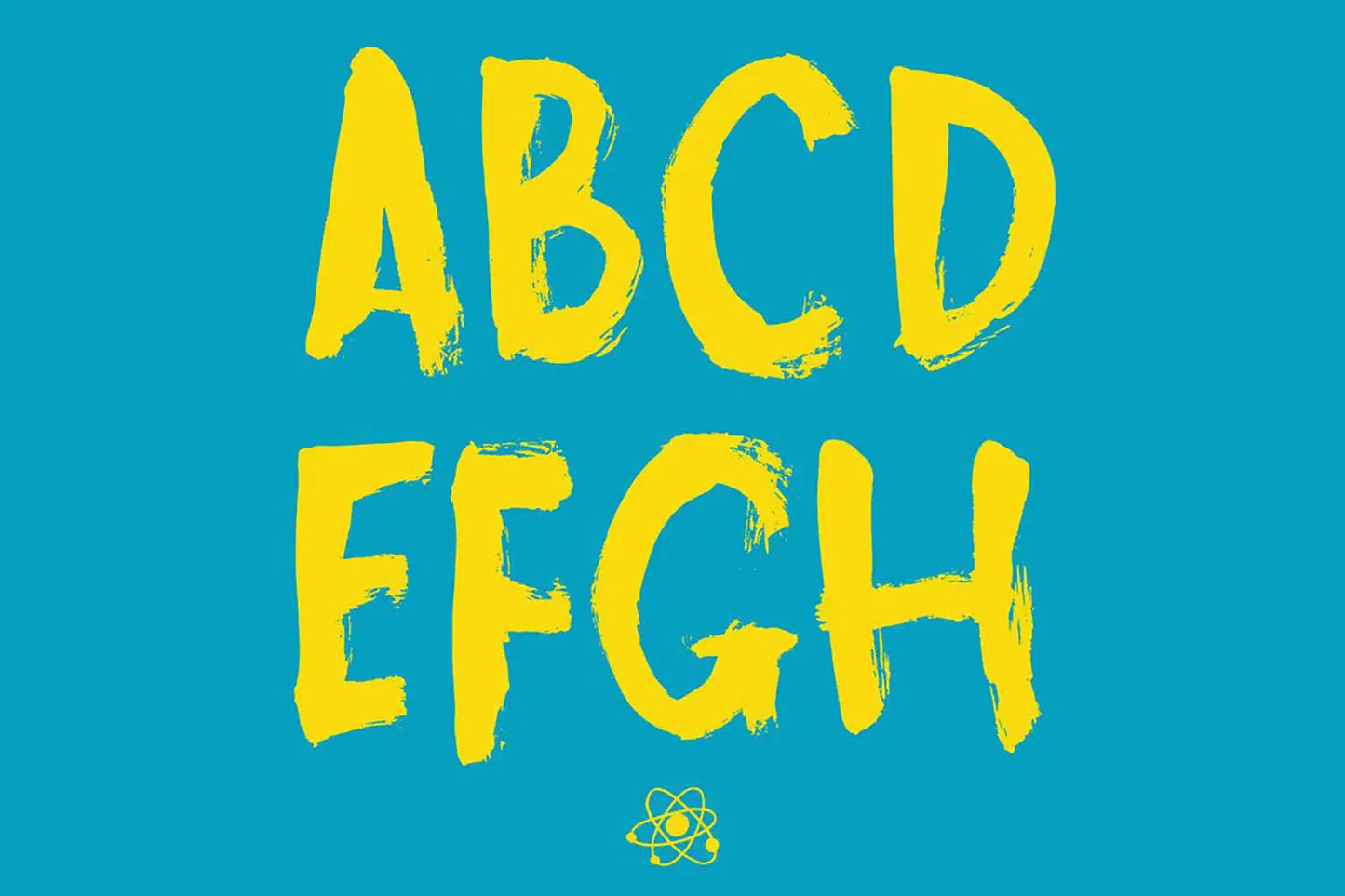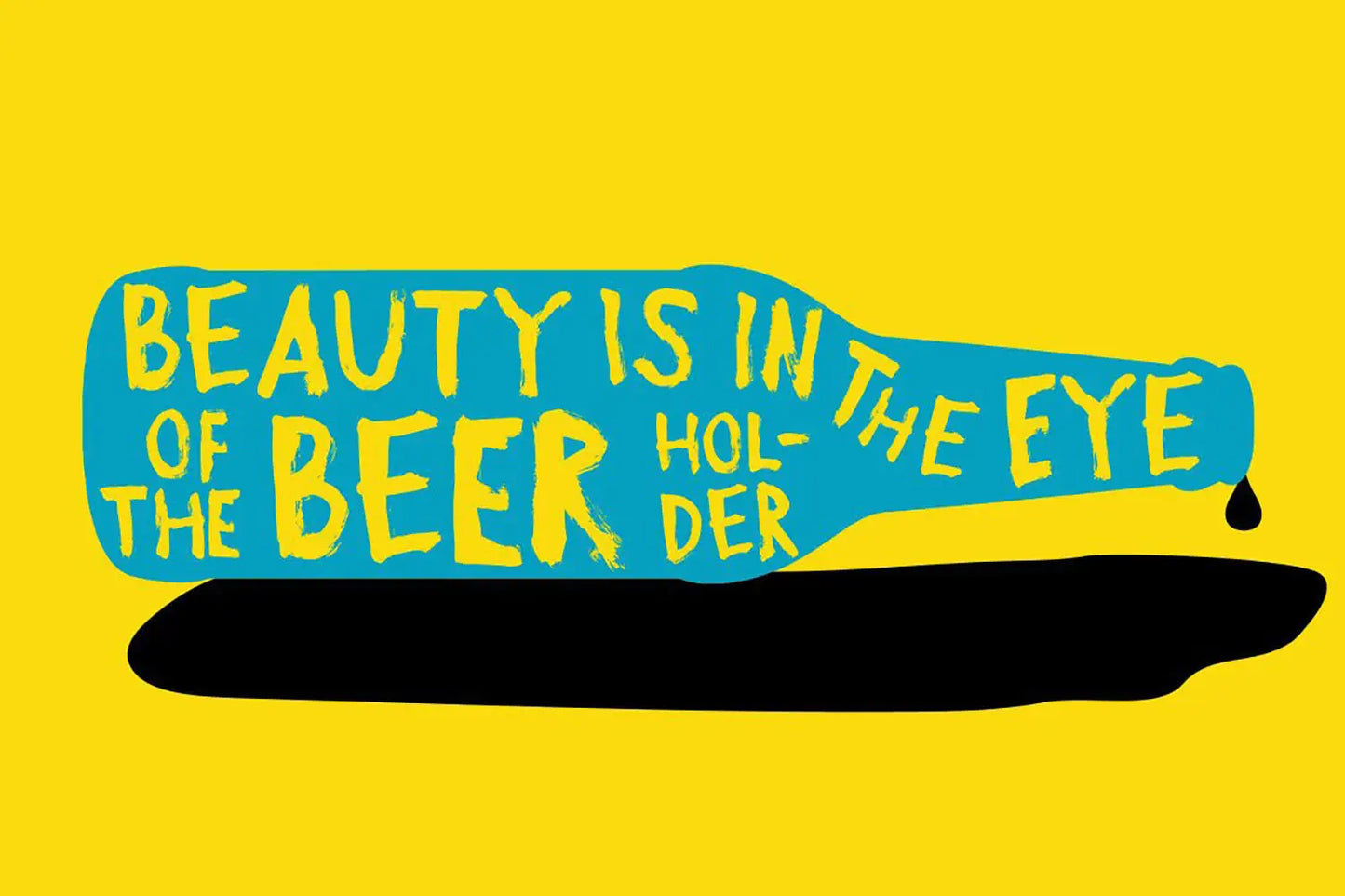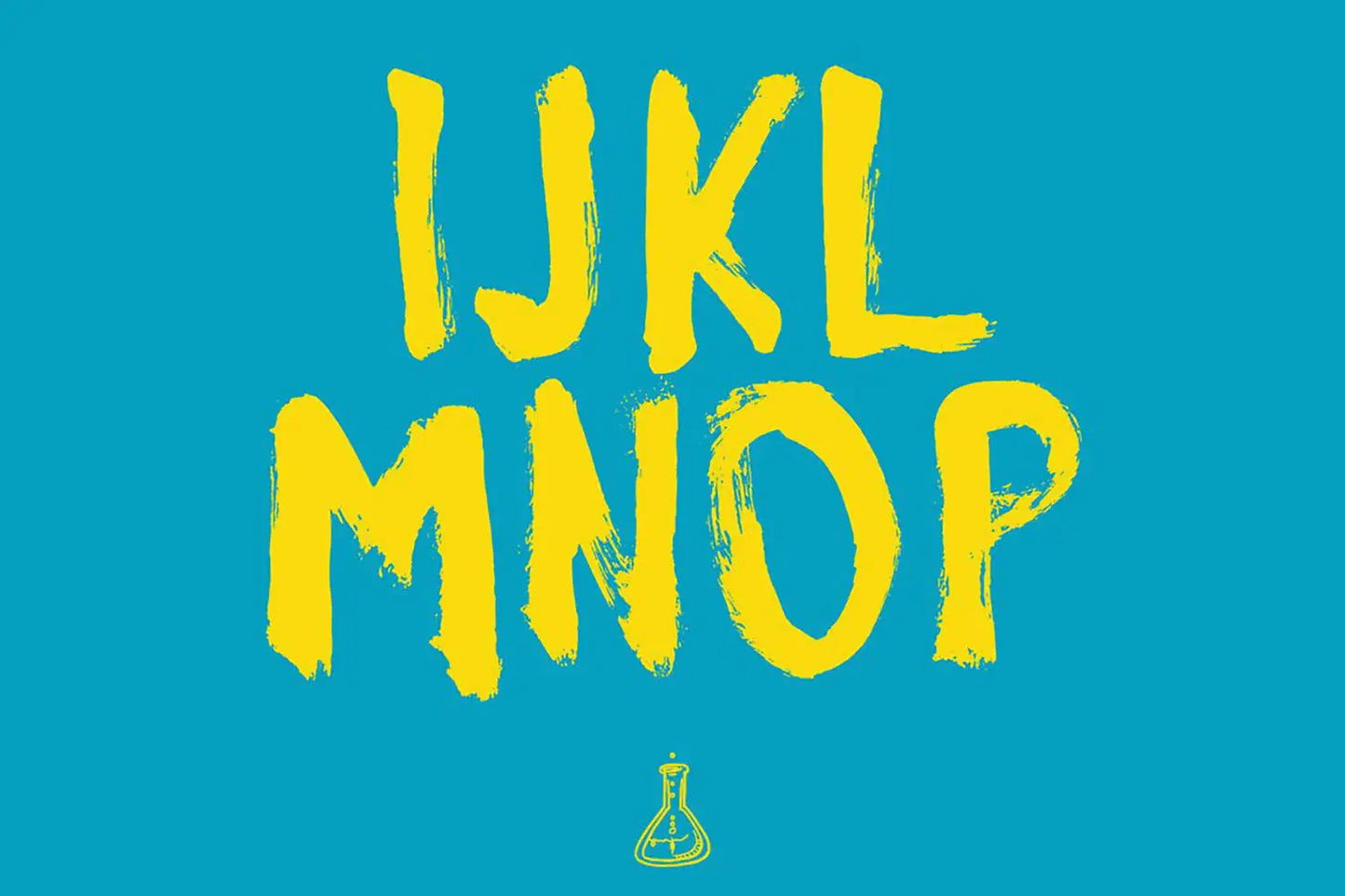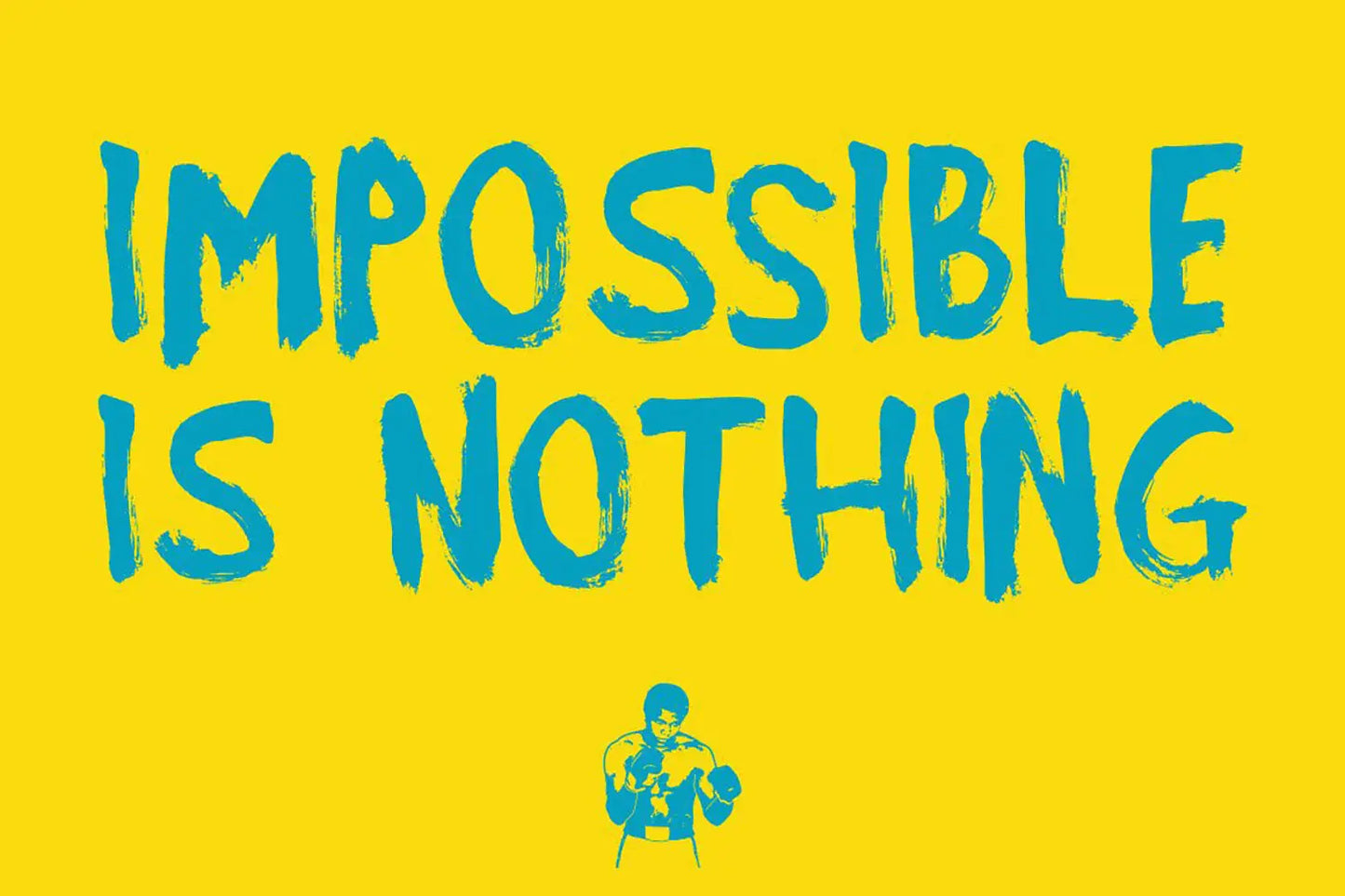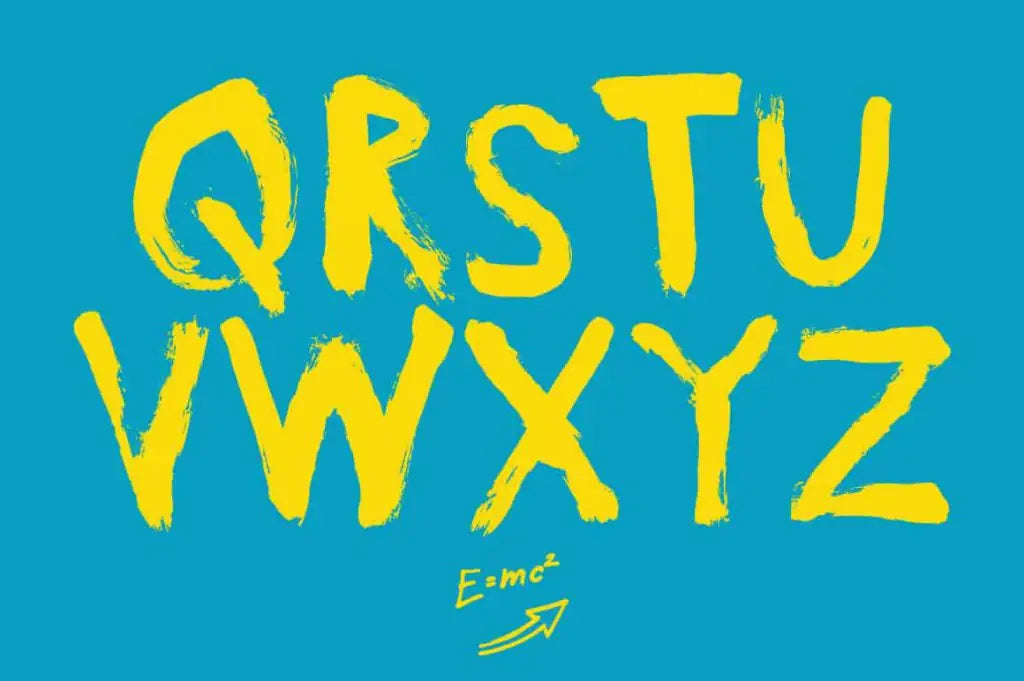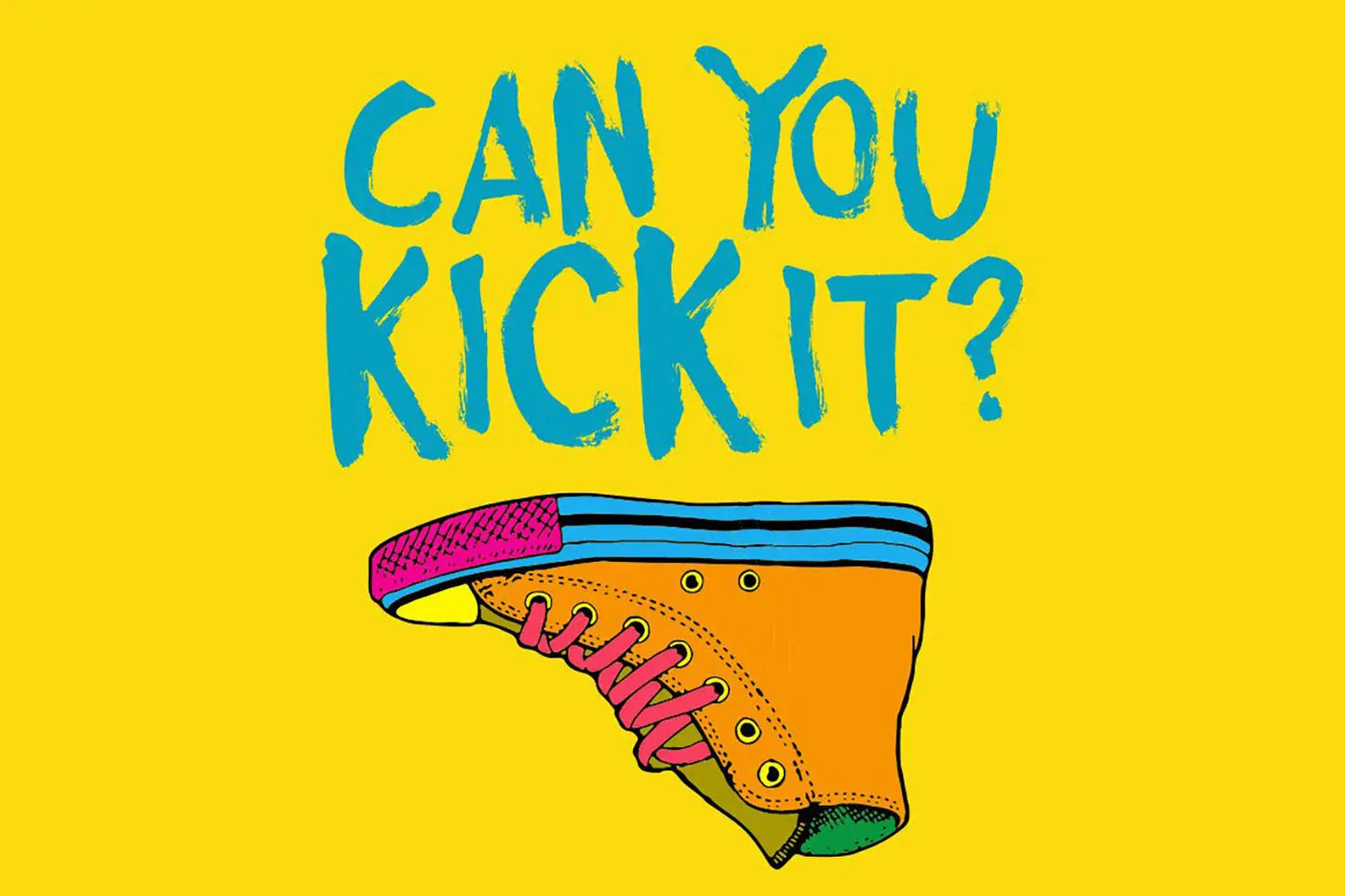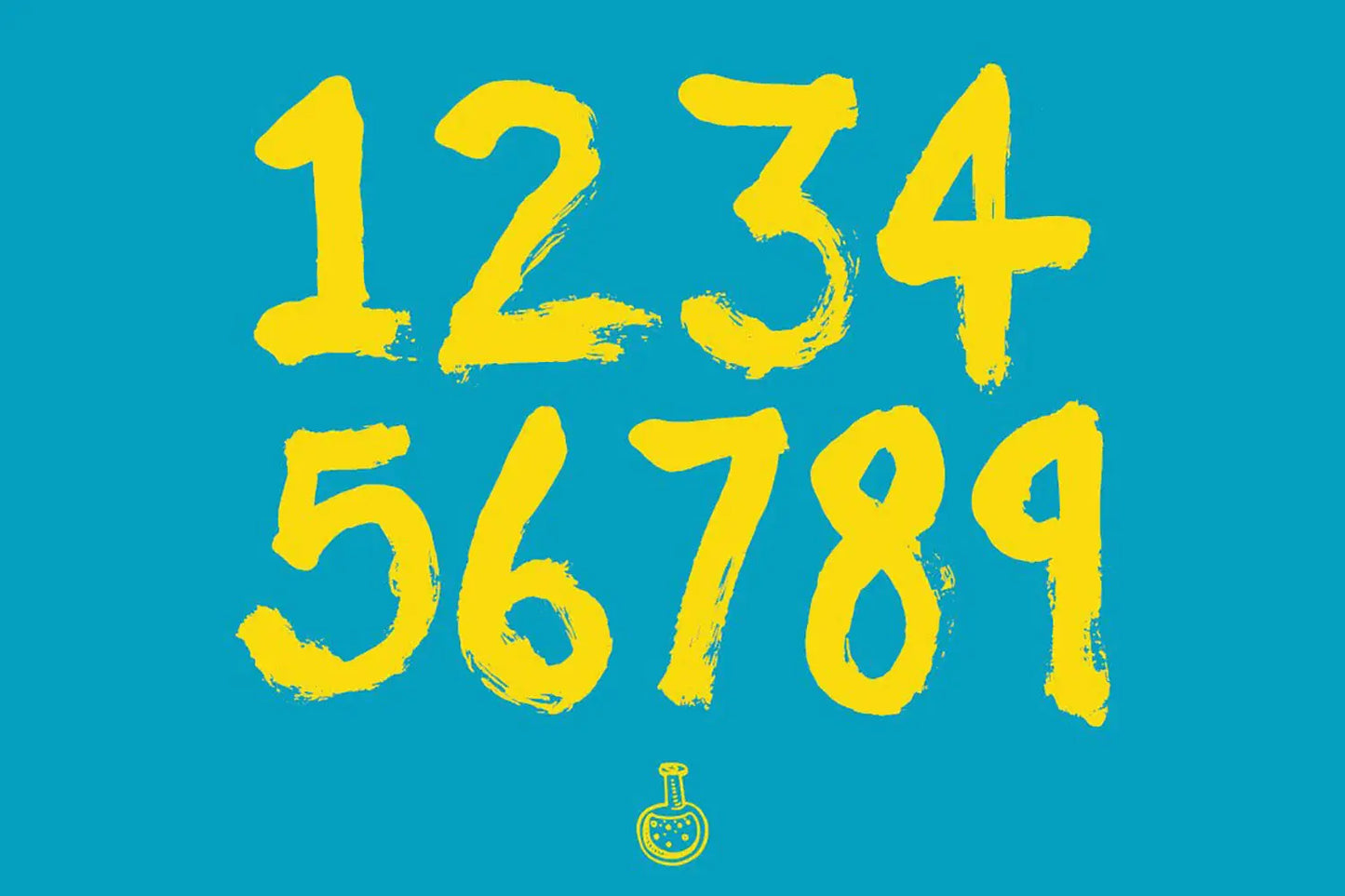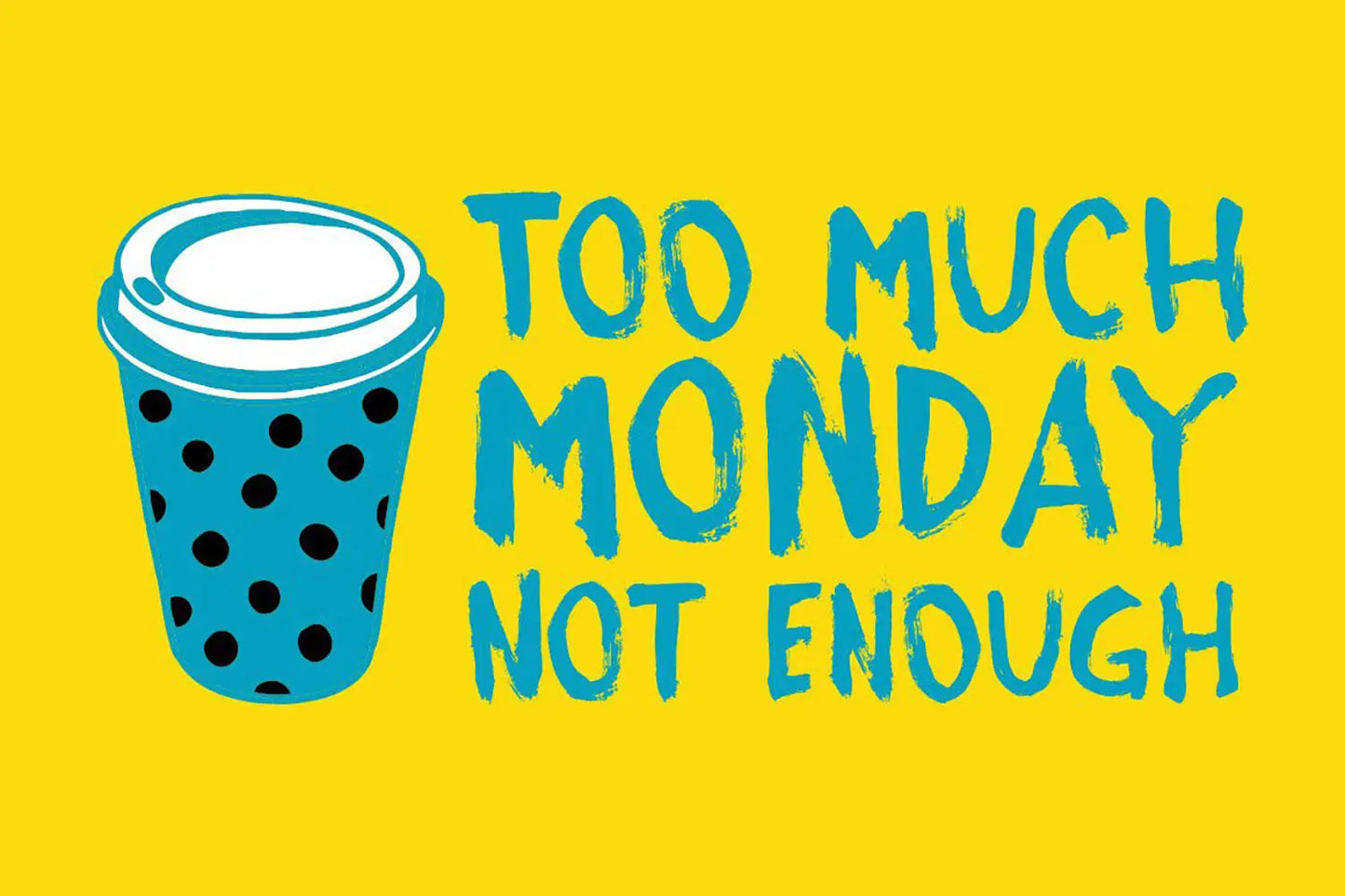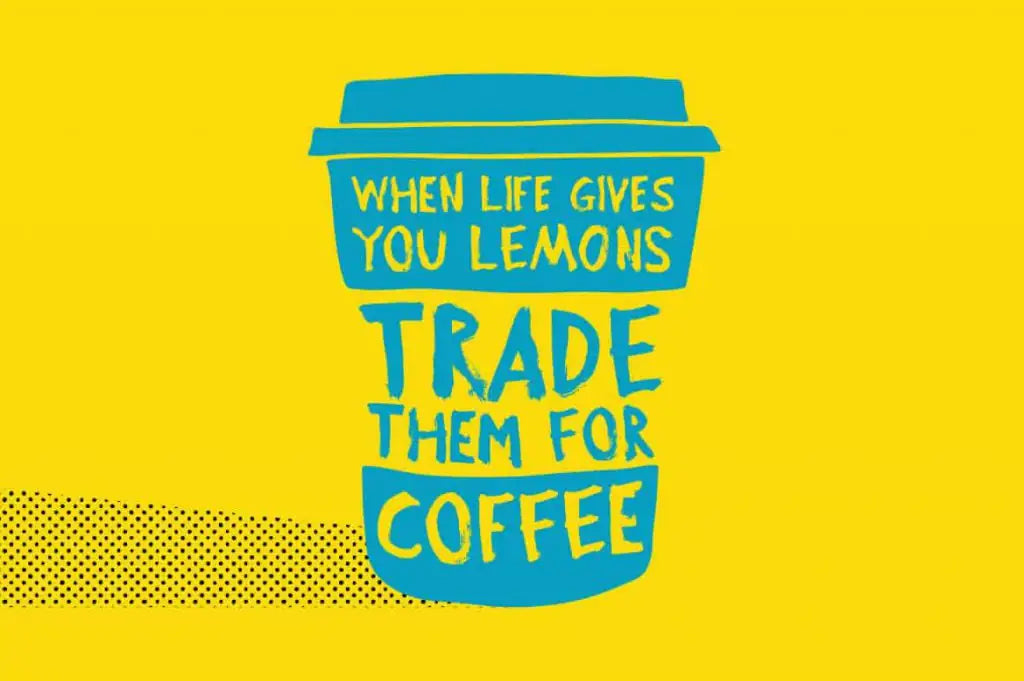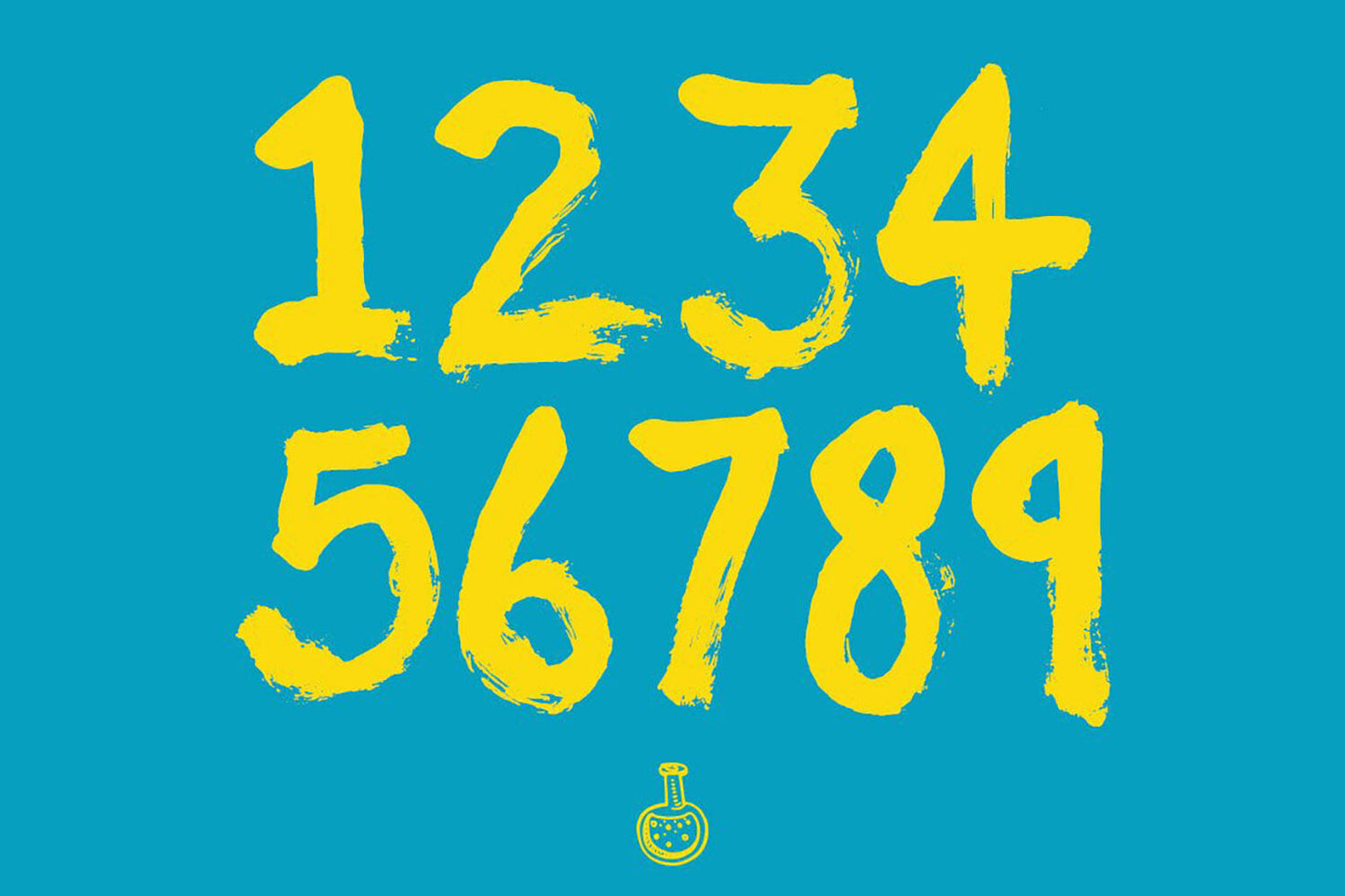
Atomic Dustbin
About Atomic Dustbin
Atomic Dustbin font was created with a dry brush and ink. I've tried to keep as much detail in the font as I can. Like lots of my handmade fonts, it's a dirty little bugger.
Created with a real brush on real paper—can you tell I’m keeping it real? Quickly painted, scanned in and converted to a typeface. It’s got lots of grungy detail that gives it a dirty urban look and feel.
It’s a unicase font, meaning it has no lowercase glyphs. The lowercase glyphs are just a copy of the uppercase, so it's easier to use. This font is loud like Kurt Cobain belting out Smells Like Teen Spirit.
Atomic Dustbin font includes:
• Two styles Regular and oblique
• Contextual alternatives
• Uppercase letters, Numbers, Punctuation & Symbols
If Atomic Dustbin font were a celebrity?
If the Atomic Dustbin font were a celebrity, it would mirror the rebellious and enigmatic persona of Johnny Rotten, the iconic frontman of the punk rock band Sex Pistols.
Just as Johnny Rotten was a symbol of anti-establishment attitude and musical innovation, Atomic Dustbin font exudes a bold, unconventional, and anarchic spirit in the world of typography.
Designers: Simon Stratford